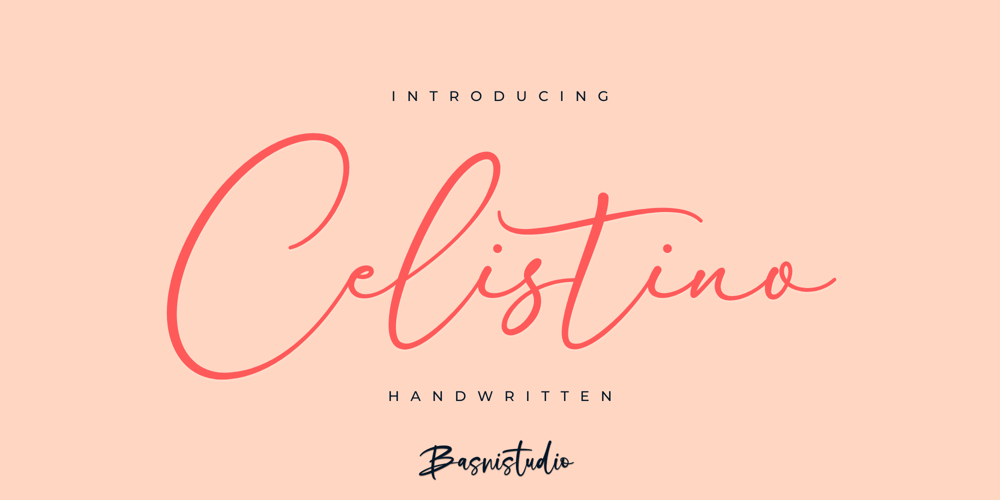
Celistino
Celistino font
Celistino Font Family was designed by Bery Arisandi and published by Basnistudio. Celistino contains 1 styles and family package options. Introducing Celistino Handwritten Font , made with Naturaly & precision, perfect for branding, websites, and editorial designs. Includes all Characters letters, multilingual support, punctuation, binding. everything can be easily accessed using software that supports OpenType. What’s include: Celistino Handwritten Font Ligatures Multilingual Support ( Support for 90 languages ) If you have any questions please don’t hesitate to contact me. follow my Instagram: @basni.std And check our Site www.Basnistudio.comThank You Very Much